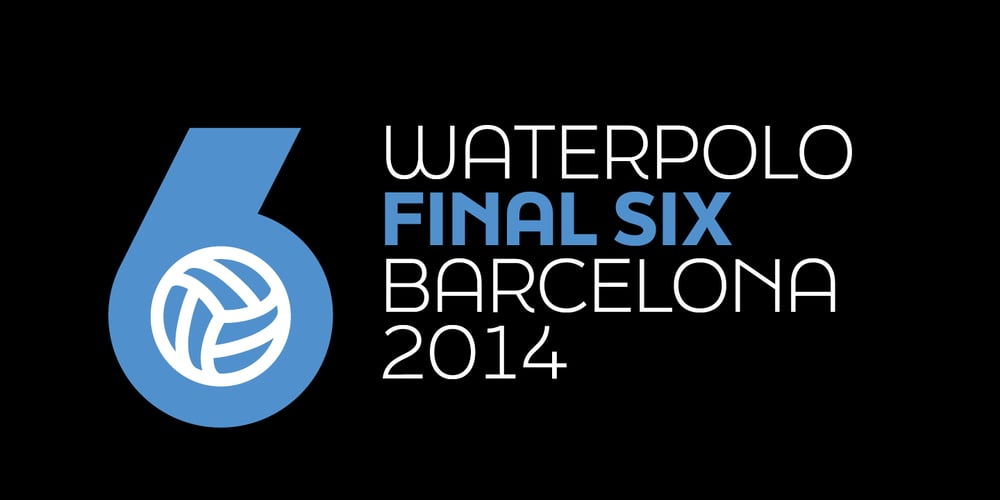
Final Six
Final Six font
Final Six Font Family was designed by José Manuel Urós and published by Type-Ø-Tones. Final Six contains 9 styles and family package options. FinalSix is the typographic adaptation of a lettering. Working on the graphic image for a sports event (the European Waterpolo Final in 2014) we had the idea of creating a character set that reflected the idea of the undulating movement of water in a pool. In practice, we draw characters with rounded tops, bottoms and diagonals and using the word WATERPOLO as a visual reference for a wavy feeling, in a process that we could define as “form follows meaning.” To preserve its personality as much as possible, the most idiosyncratic characters are found in the Default set, while we can find more standardized variations for editorial use in a Stylistic set.